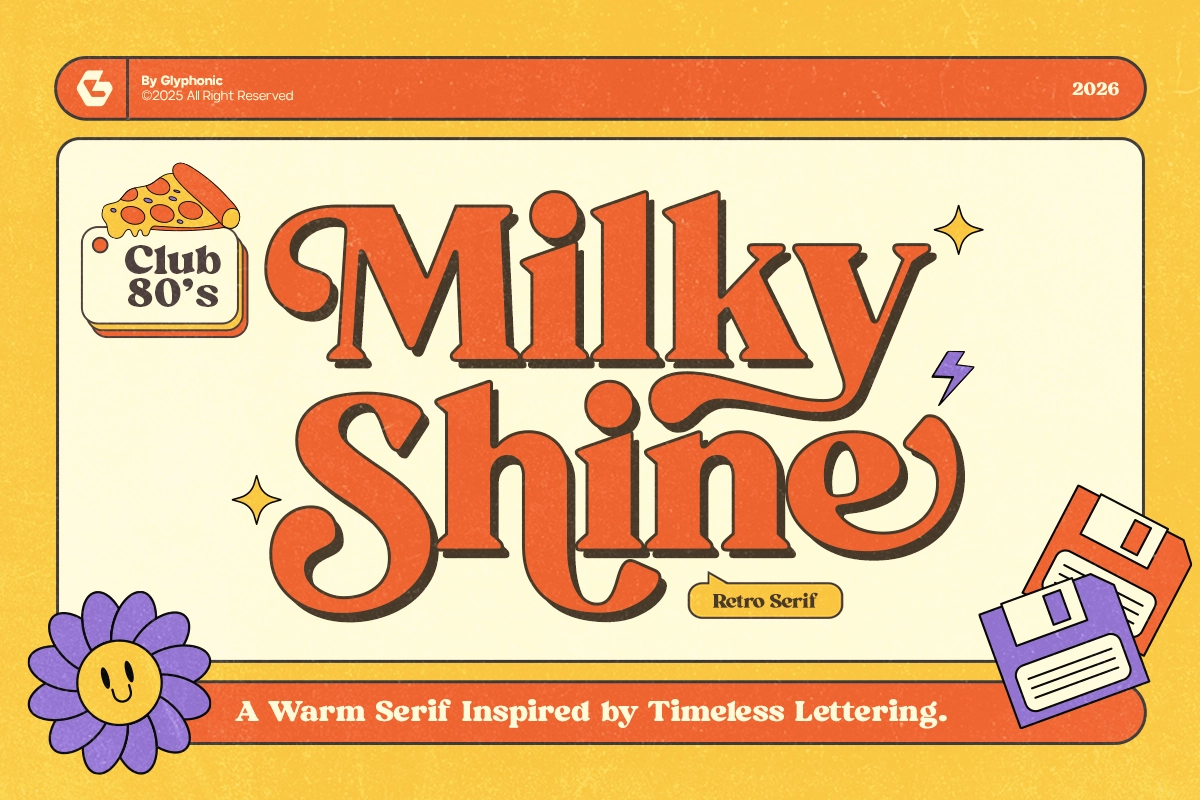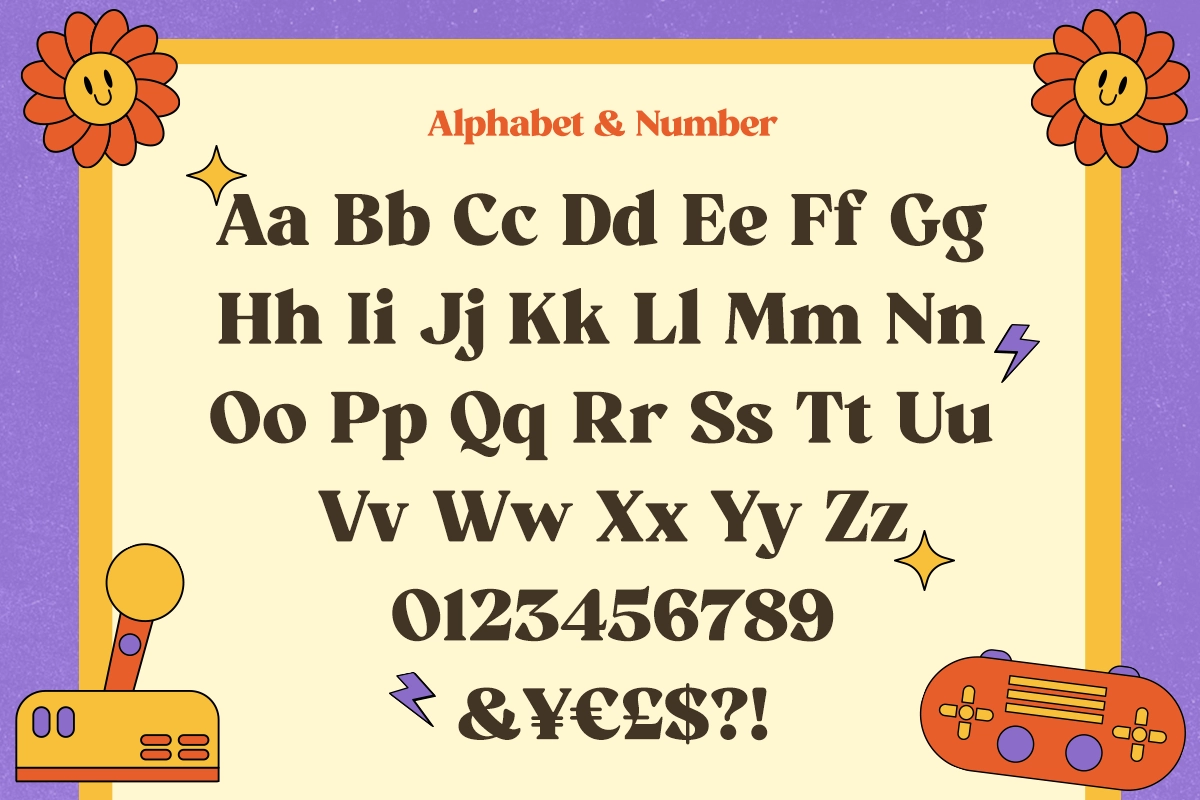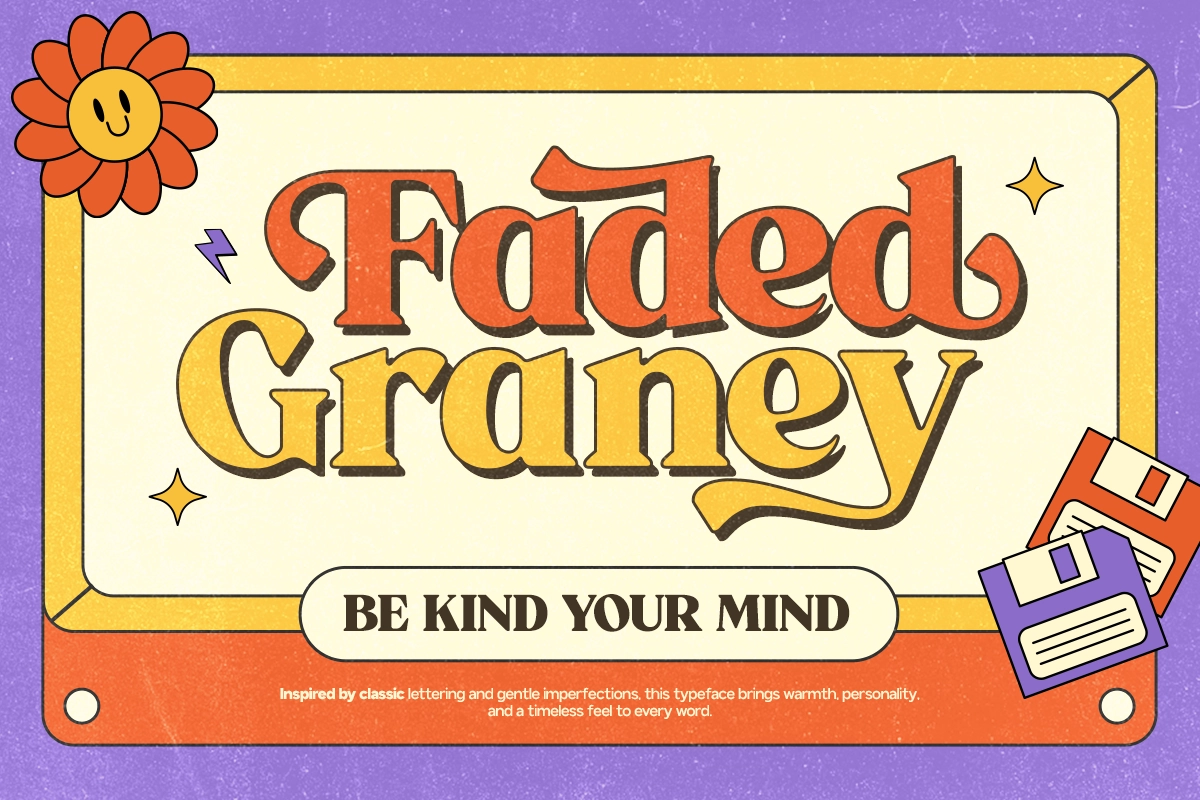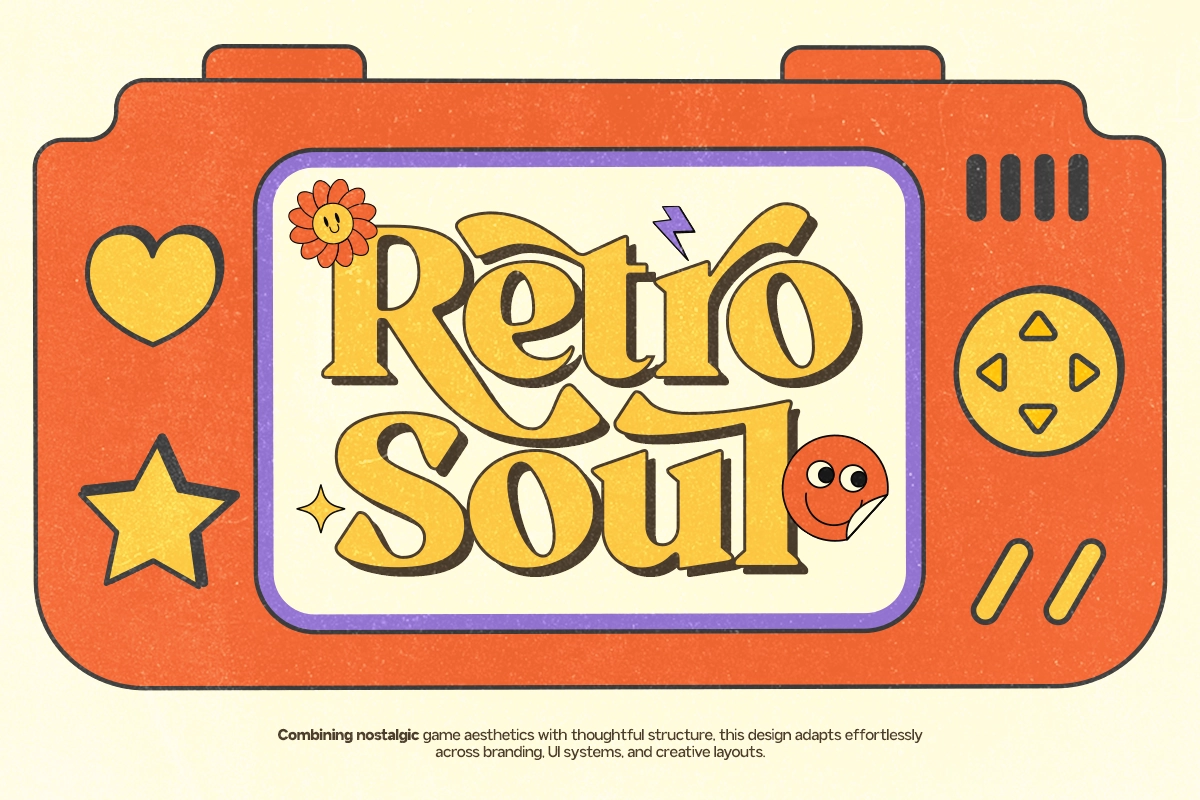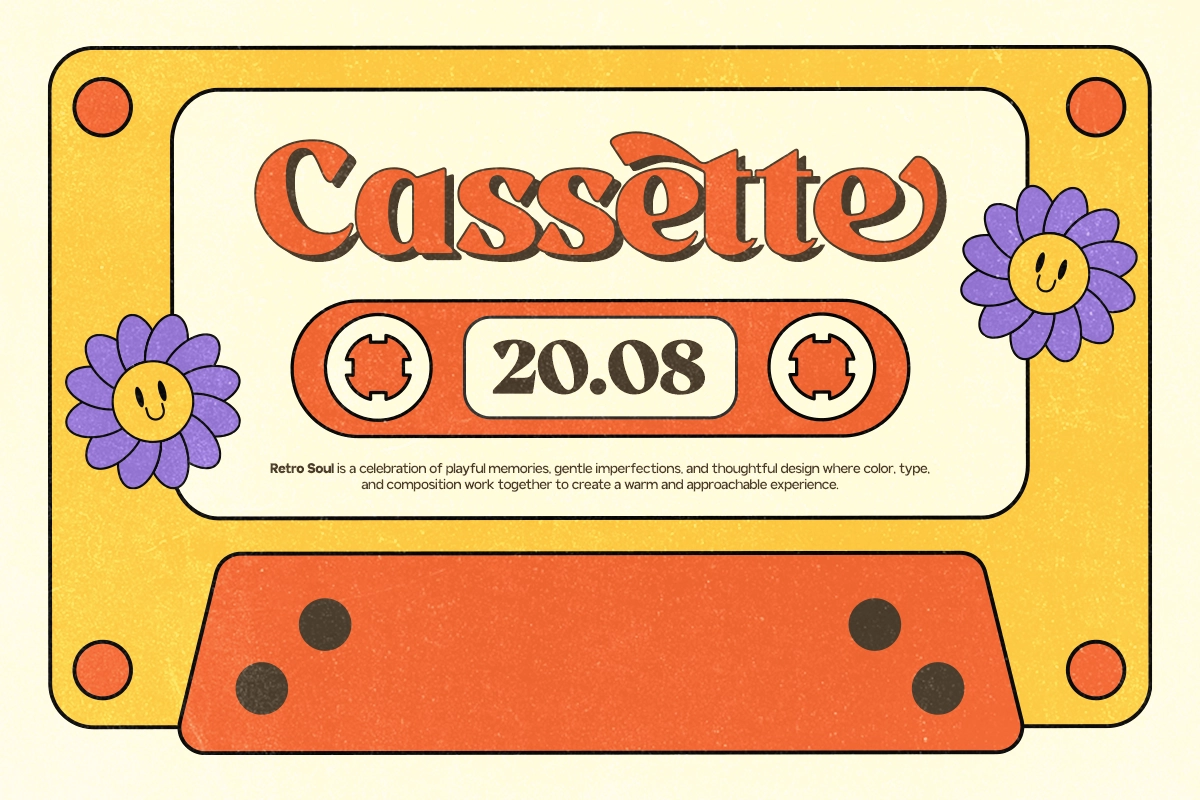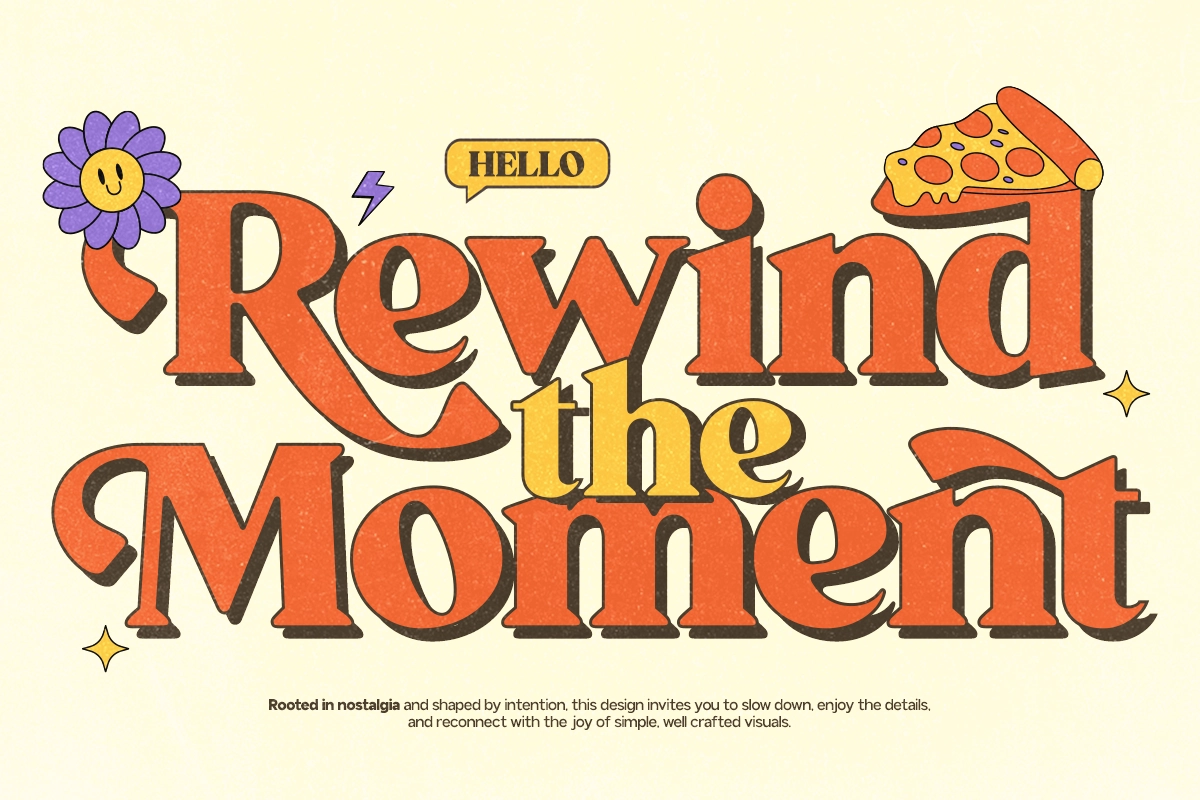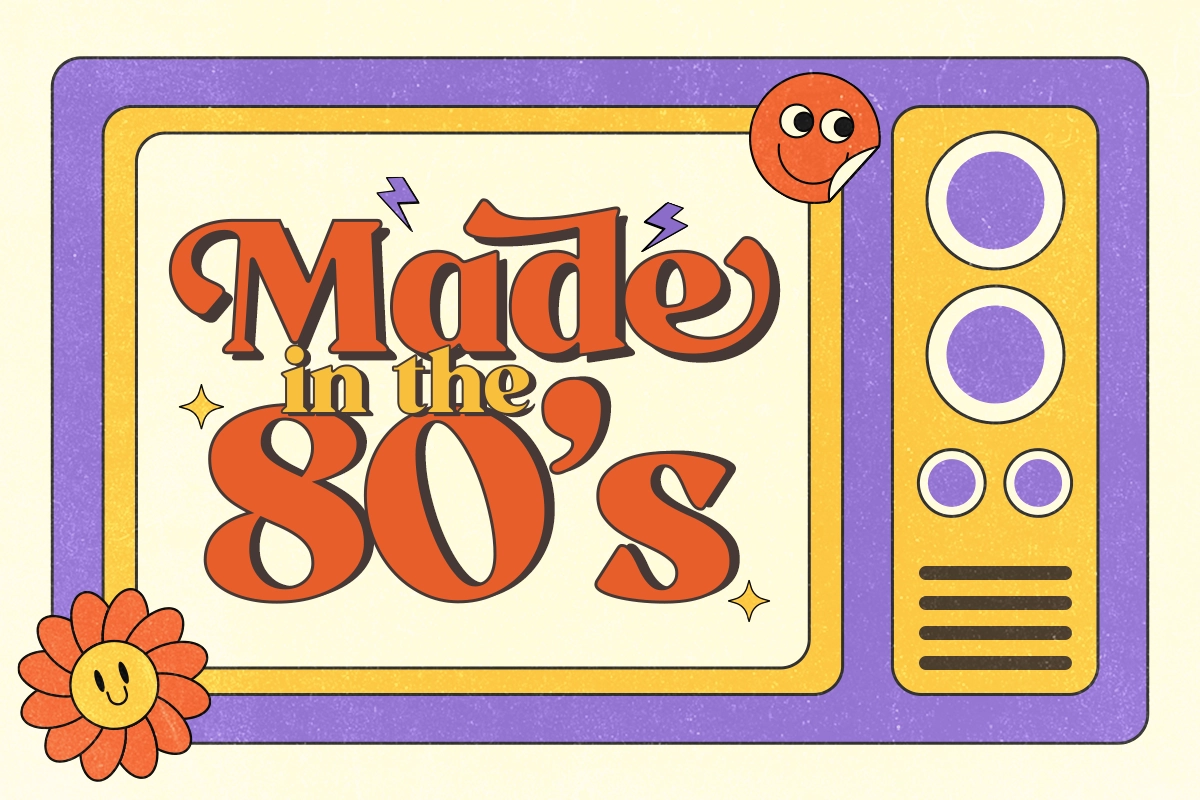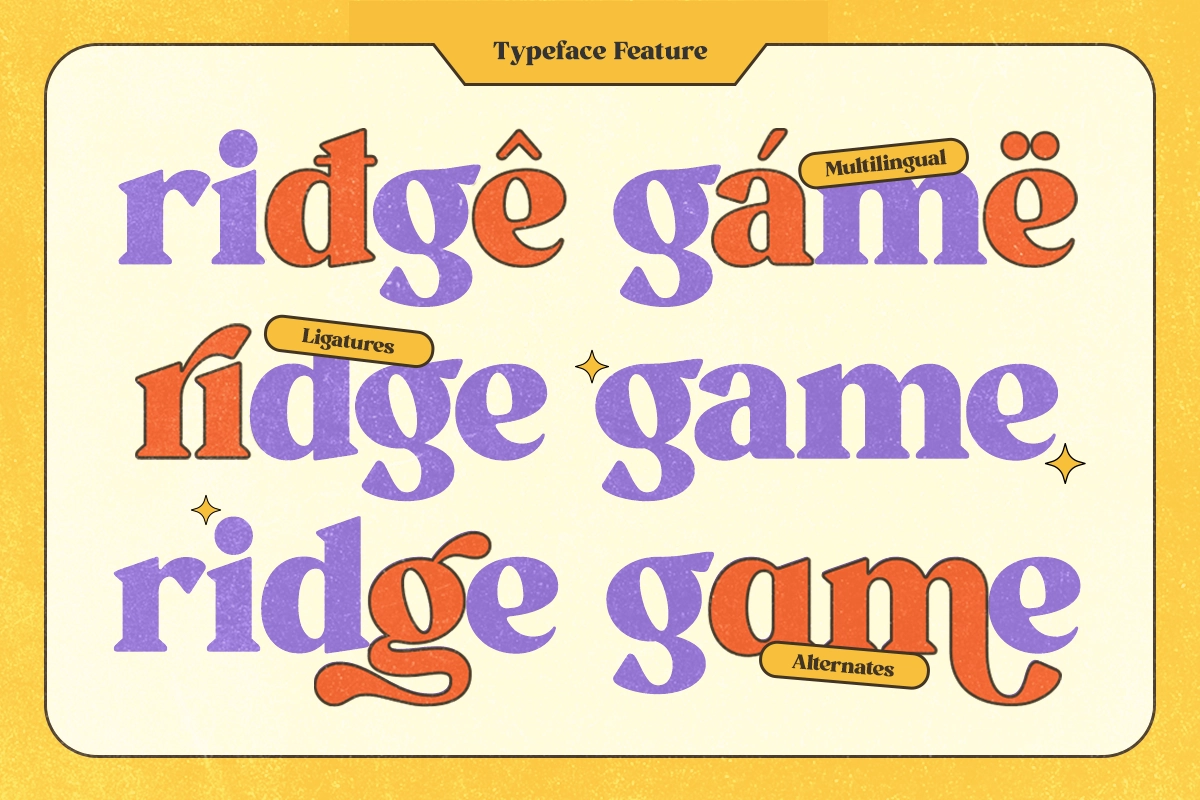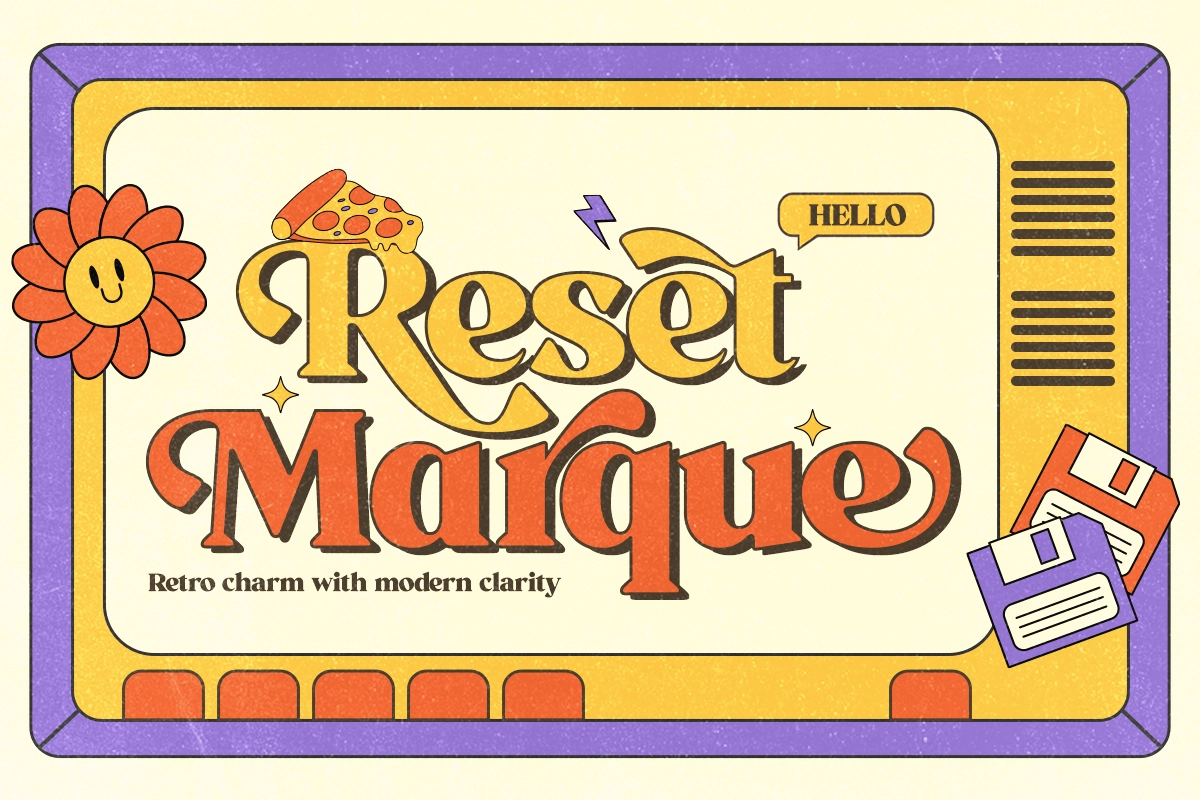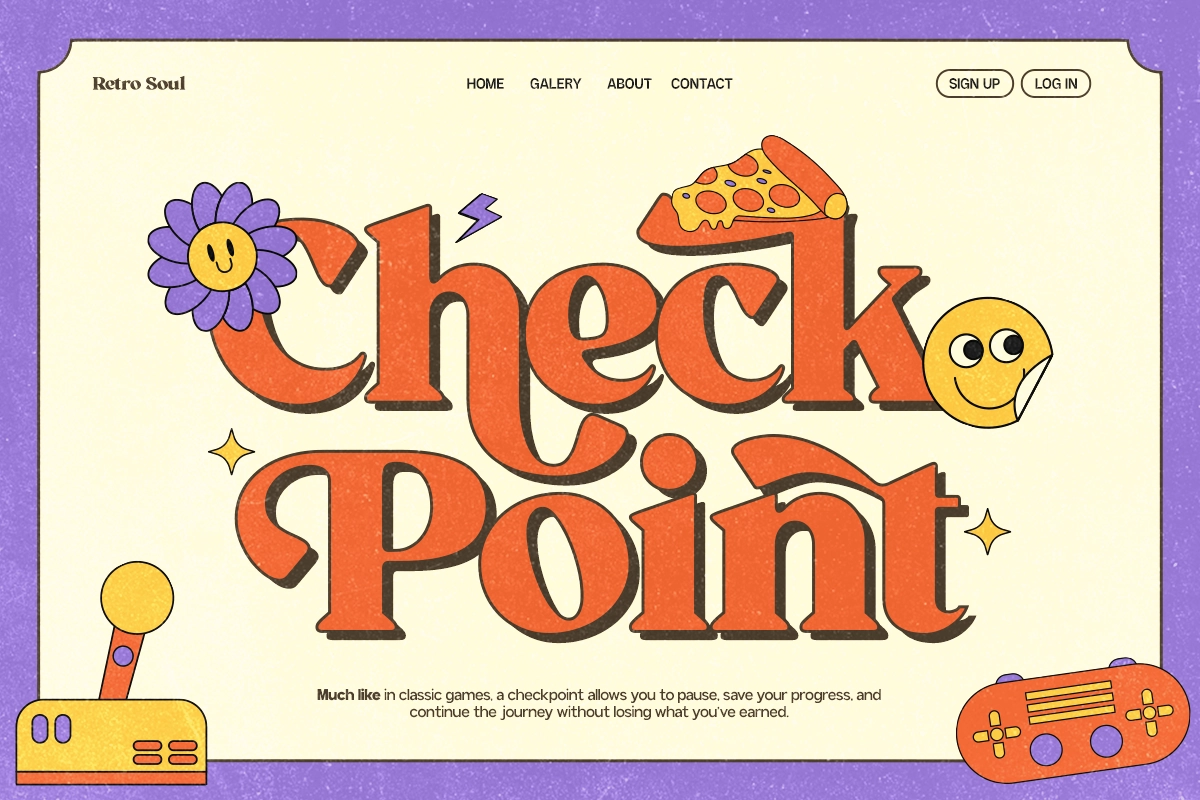
GC Milky Shine – 80’s Club Retro Serif
Step into the glow of neon nights with GC Milky Shine – 80’s Club Retro Serif , a bold vintage-inspired typeface infused with the glamour of disco culture and retro fashion. With its dynamic curves, confident contrast, and playful serif details, this font radiates the unmistakable energy of 1980s nightlife.
Crafted to reflect shine, rhythm, and expressive attitude, GC Milky Shine is ideal for retro branding, album covers, club and event posters, editorial headlines, fashion visuals, packaging, and standout logo designs. Its strong yet stylish letterforms create eye-catching compositions that feel both nostalgic and fashion-forward.
Whether you’re building vibrant headlines or stylish vintage layouts, GC Milky Shine – 80’s Club Retro Serif delivers bold personality and timeless retro sparkle.
- Uppercase & Lowercase letters
- Distinctive retro serif style
- Multilingual support (170+ languages)